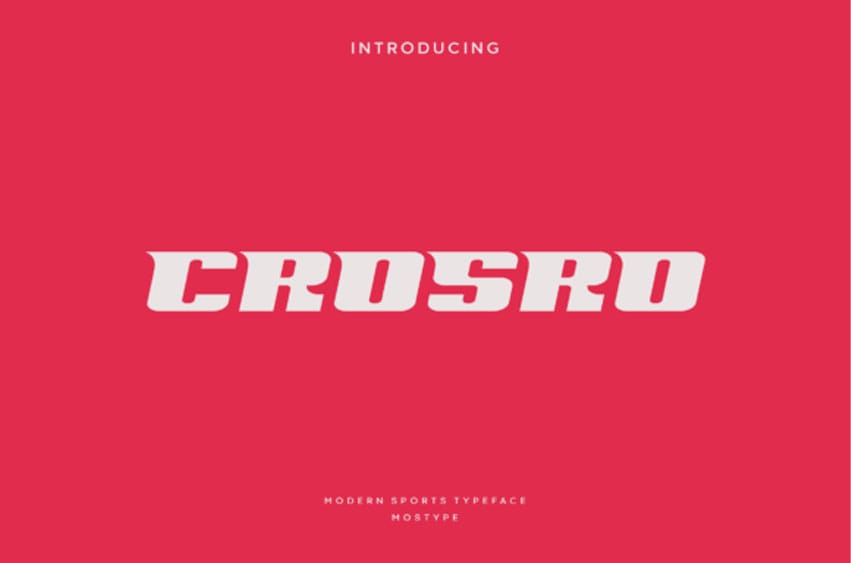
Crosro Font is a sporty look with a strong and sporty feel, perfect for your titles, logos, typography, flyers, and various design needs, making your designs more modern and professional.
**Crosro** comes with all caps, making them look strong and bold, giving them a bold and modern feel, so enjoy creating any project that will showcase your main idea!